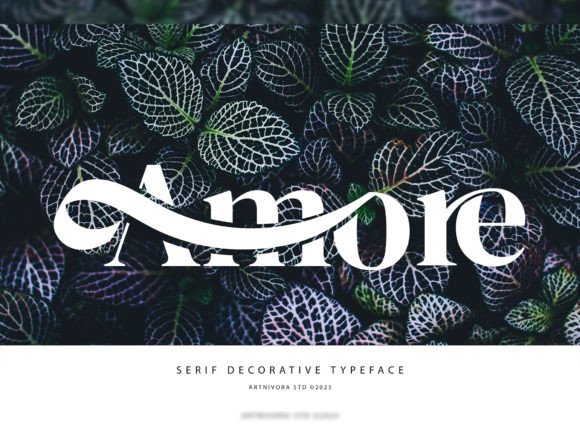
Unleash the Allure of Amore: A Timeless Serif Font That Embraces Elegance and Distinction
In a world clamoring for attention, let your designs captivate with Amore, a font that whispers sophistication and grace. This serif masterpiece from the creative genius of artnivora.std transcends the mundane, inviting you to craft creations that resonate with timeless allure.
Whether you're a seasoned designer or just starting your creative journey, Amore's versatility will ignite your imagination. Its meticulously crafted curves and delicate serifs bestow an air of sophistication, perfect for logo designs that demand instant recognition. Let your branding radiate timeless elegance, leaving an indelible mark on the minds of your audience.
Step into the realm of print and let Amore's charm dance across the pages of your magazines. Its crisp lines and graceful strokes will transform your words into works of art, captivating readers with their inherent beauty. From fashion spreads to editorials, Amore's presence elevates the ordinary, making each page a visual masterpiece.
For those who navigate the digital realm, Amore is your ally in crafting social media posts that shimmer with brilliance. Its distinctive character will make your messages stand out in the crowded online sphere, capturing the attention of your followers and leaving them craving more. Amore's effortless charm will transform your social media presence into a symphony of visual delight.
Brochures, flyers, and other marketing materials take on a new life when adorned with Amore's timeless beauty. Its ability to convey both elegance and approachability makes it the perfect choice for businesses seeking to establish a strong and lasting connection with their customers. Let Amore be your ambassador of style, communicating your brand's values with grace and clarity.